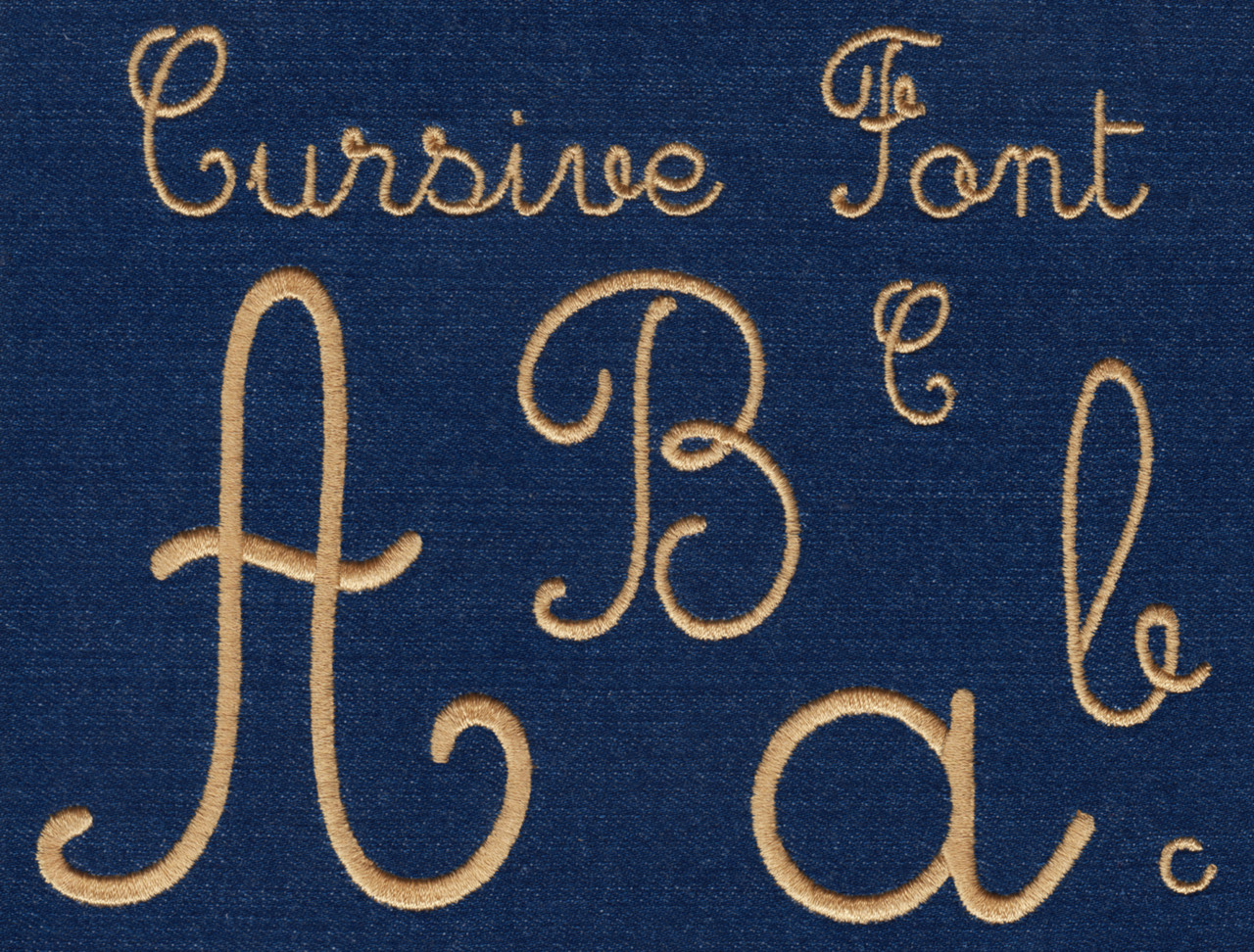
200 Cursive Font
Cursive Font comes in eleven sizes; .5", .75", 1", 1.5", 2", 2.5", 3", 3.5", 4", 4.5" & 5". All sizes included in purchase price. All sizes finished in Satin Stitching. Includes Uppercase letters, lowercase letters, numbers and ten punctuation marks in each size. Lowercase letters have left to right connection points to minimize the amount of jump stitches you'll need to trim out if your machine doesn't trim. The 0.5" and 0.75" sizes have small parts that are close together and small stitches and are suitable for medium to light weight non-stretch fabric using proper stabilization to prevent thread jamming...it is also recommended that you slow your machine's stitch speed (if allowed).